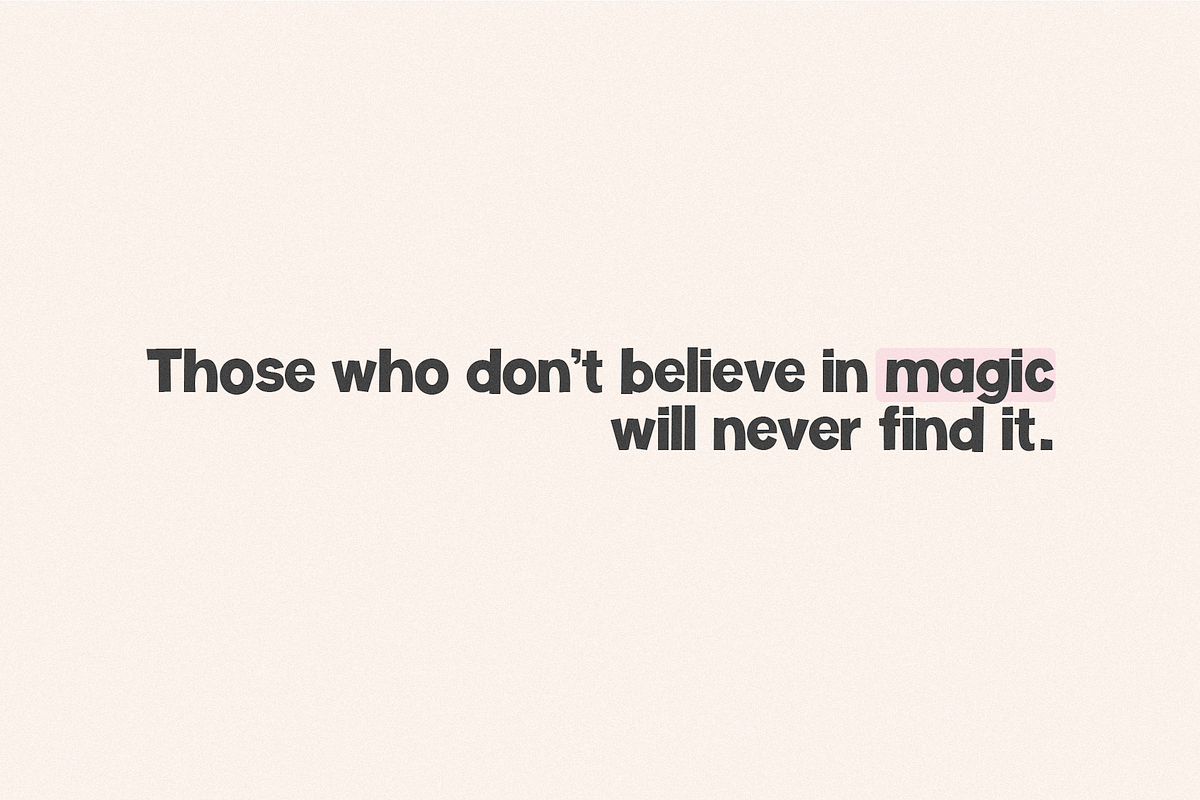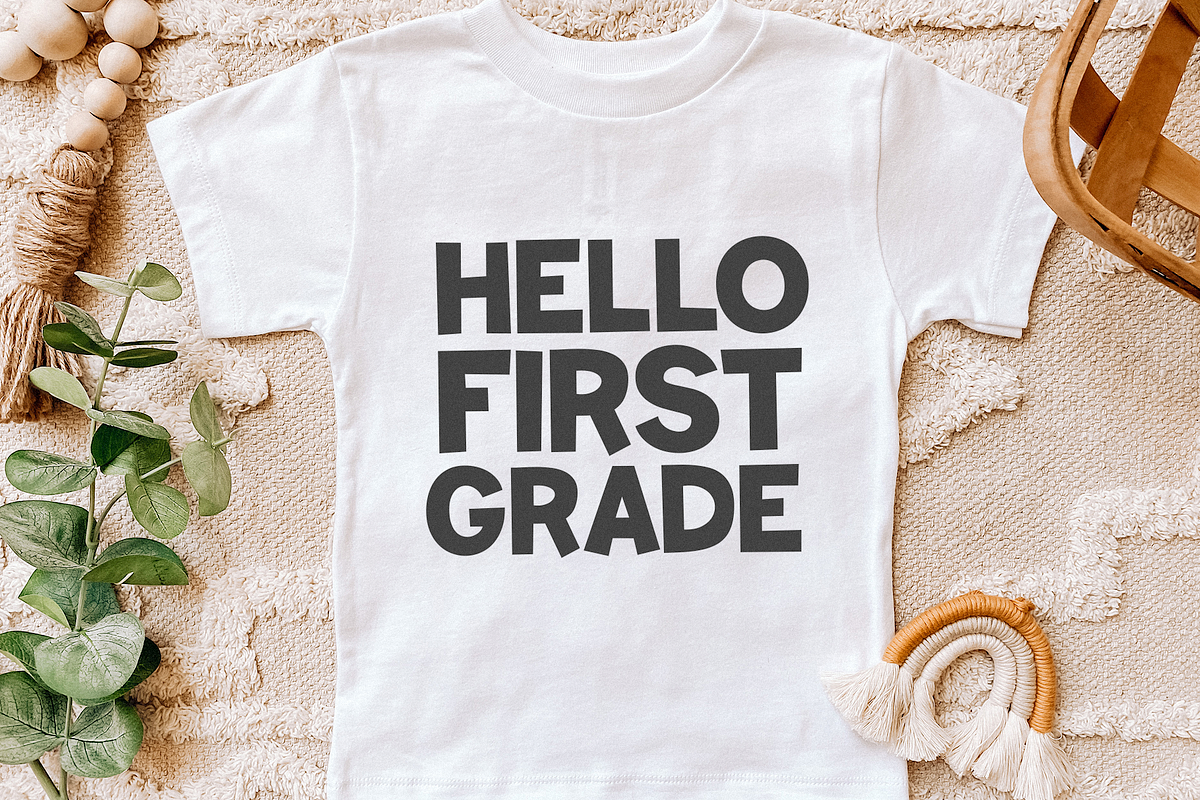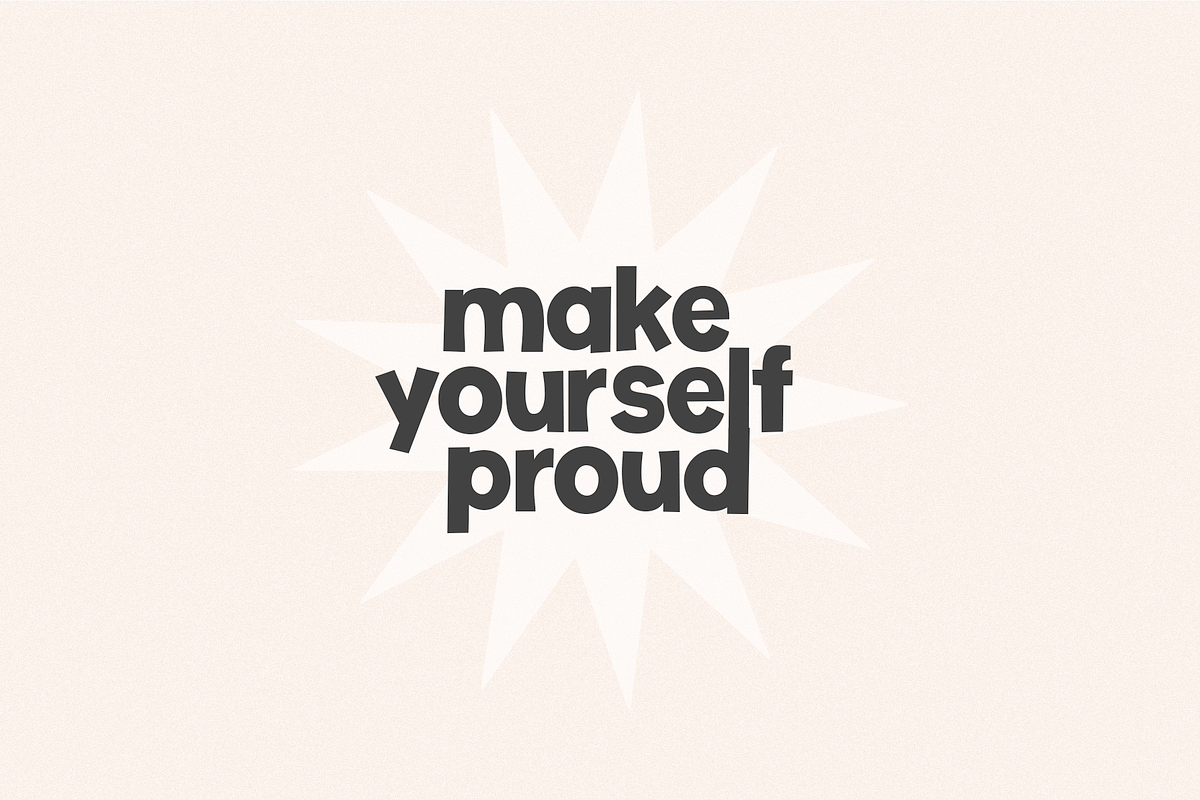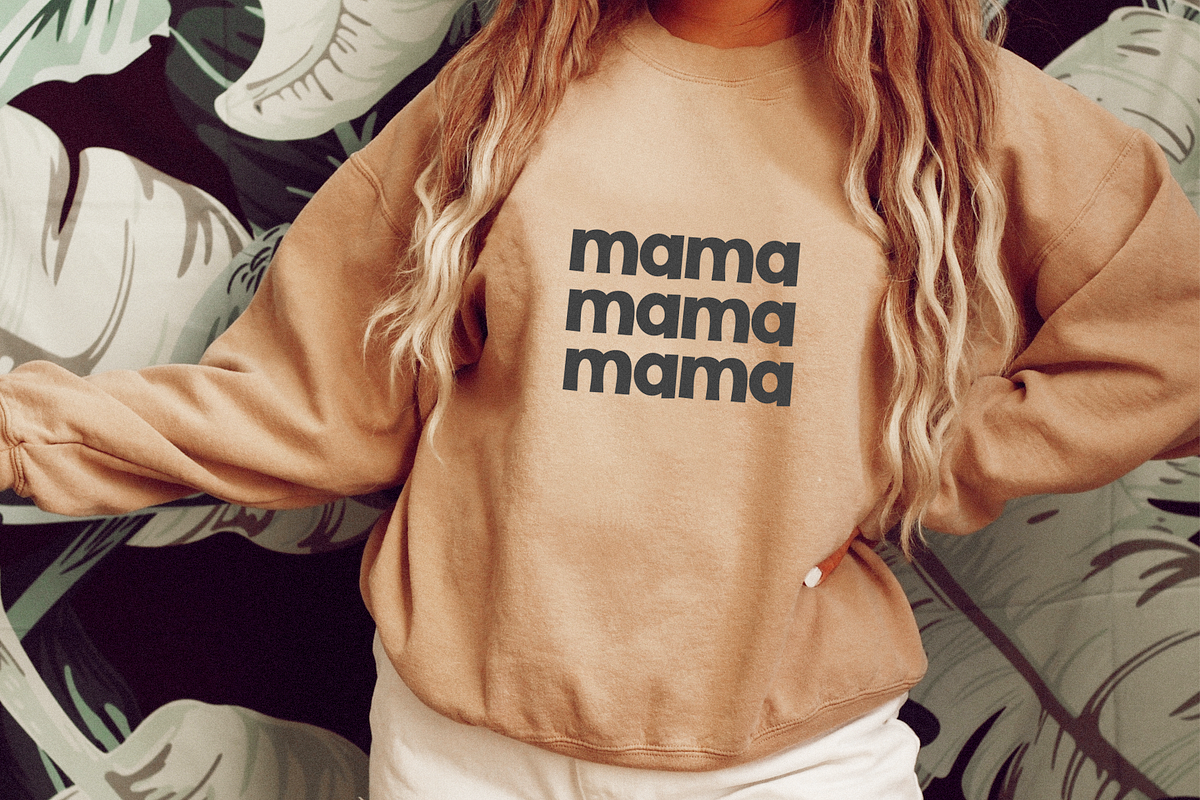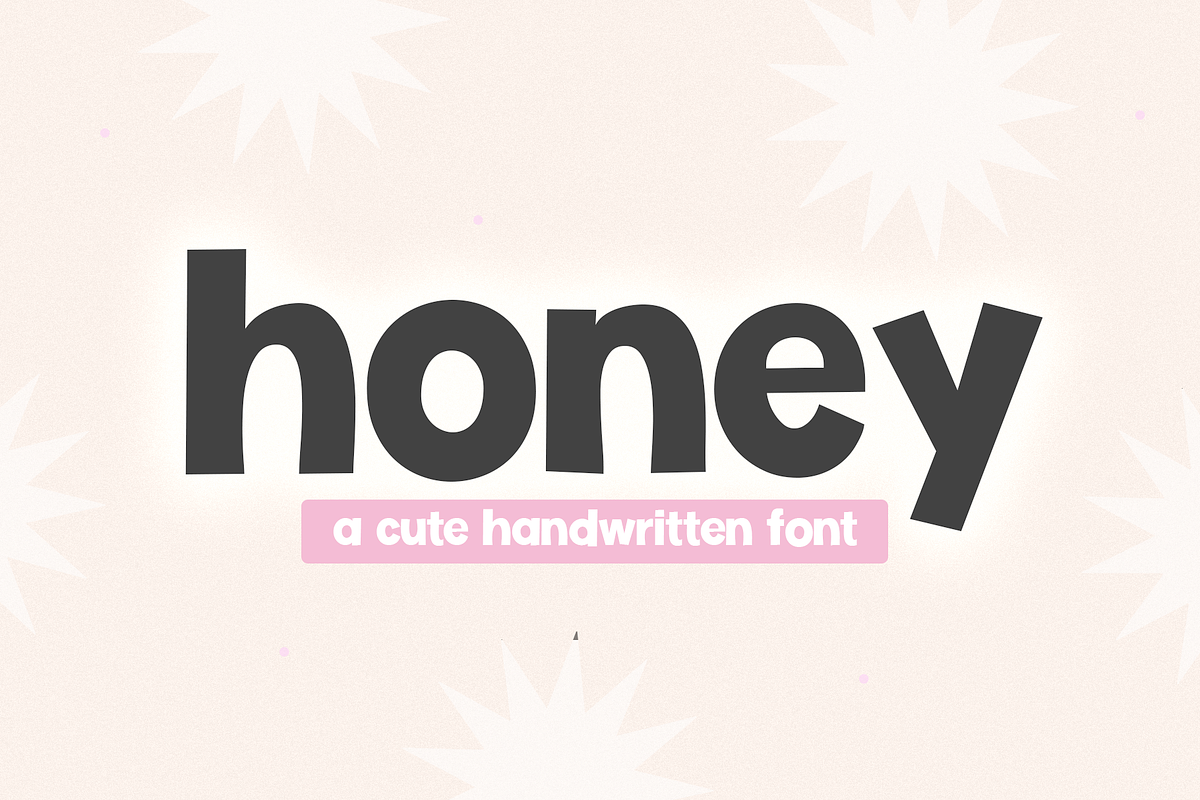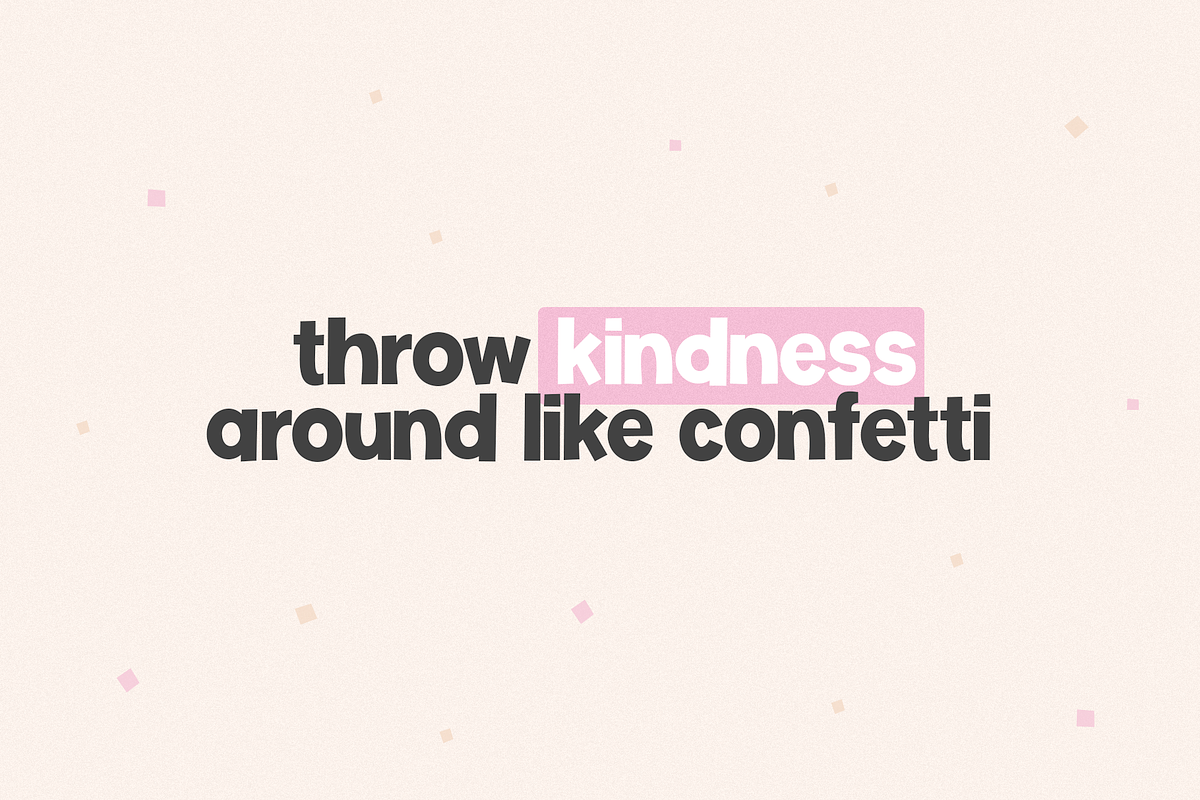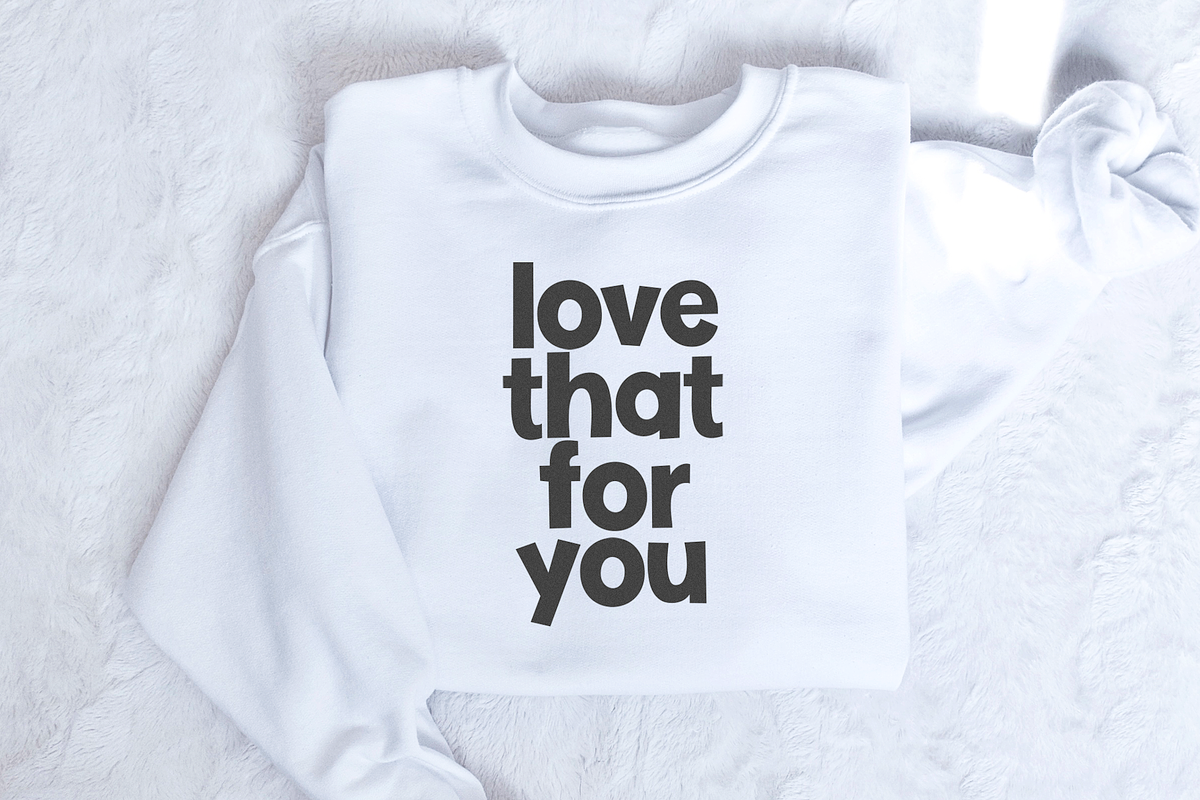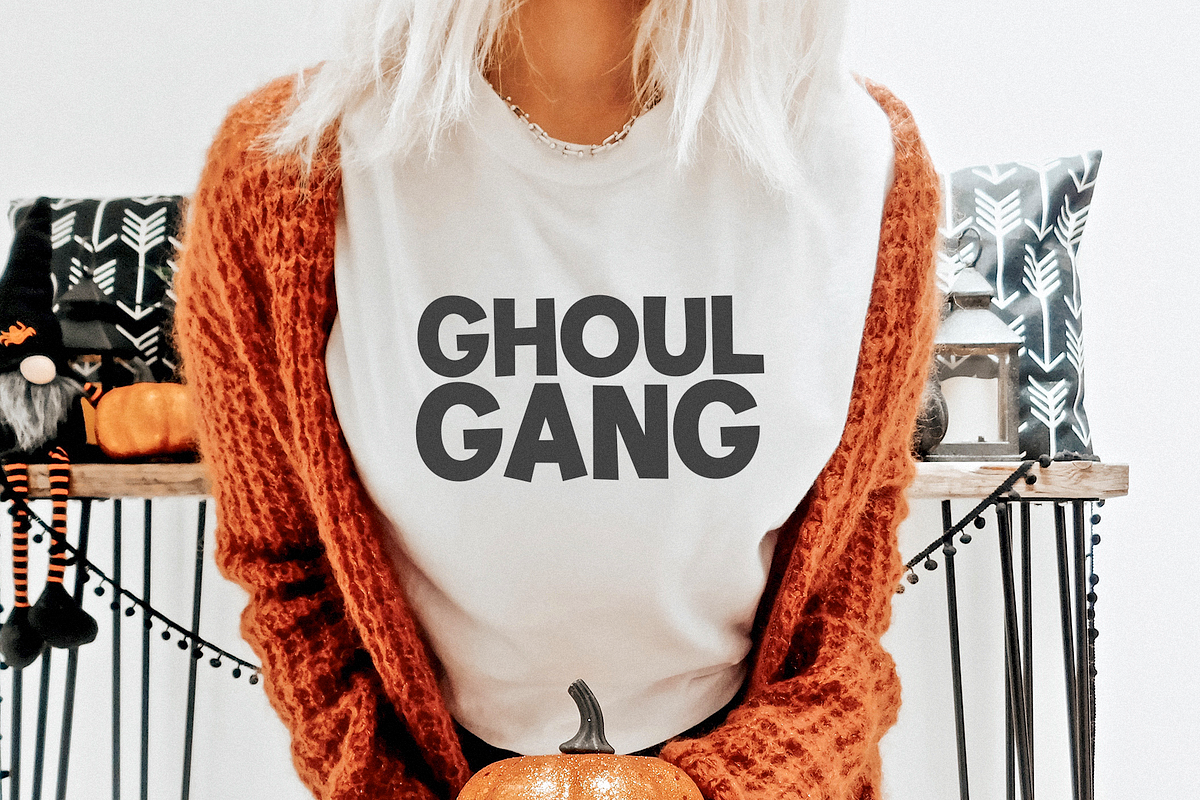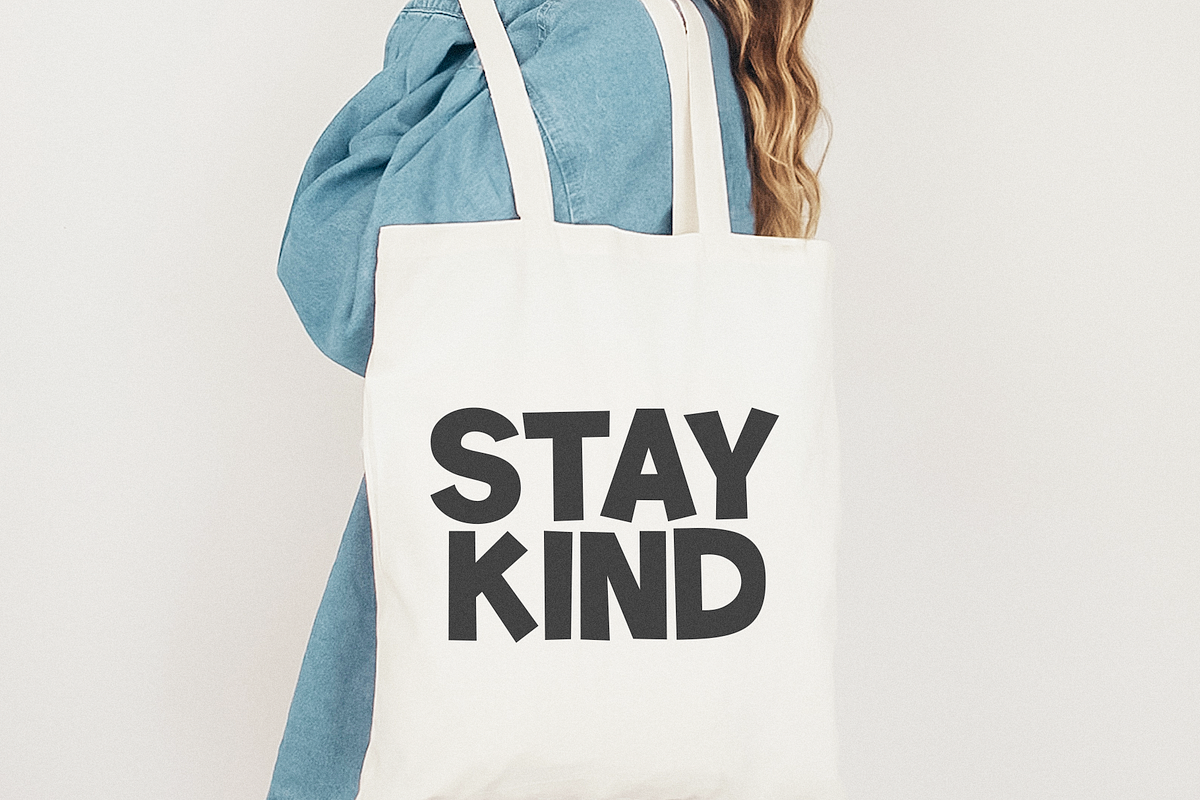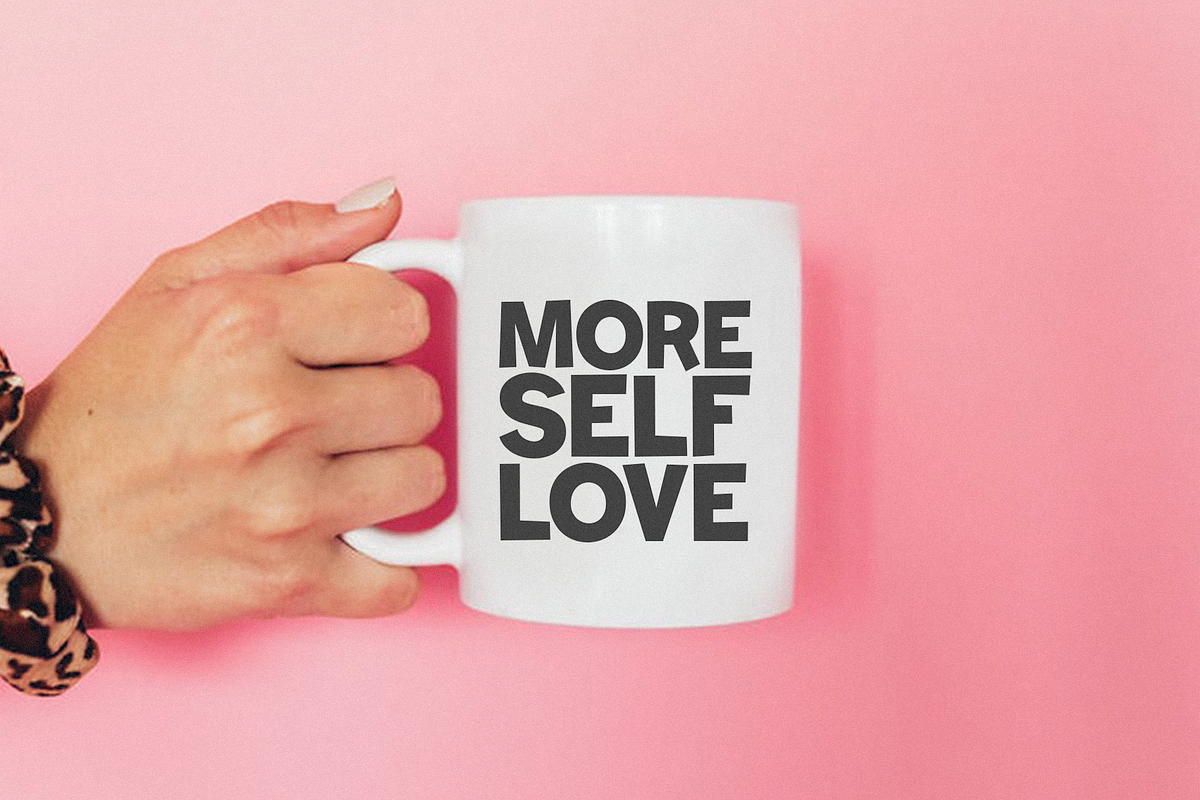
Honey | Fun Handwritten Font
Honey is a fun handwritten font.
This font is perfect for craft projects, shirts, mugs, stickers, teachers, procreate, quotes, logos and more!